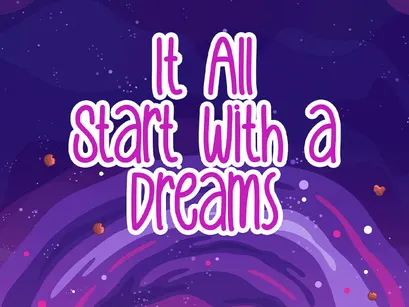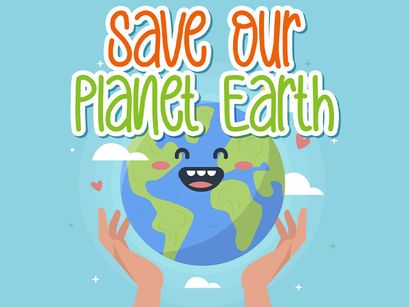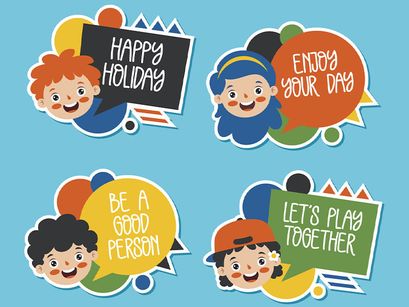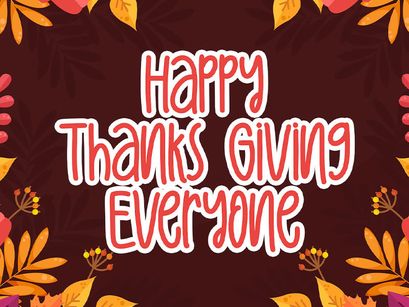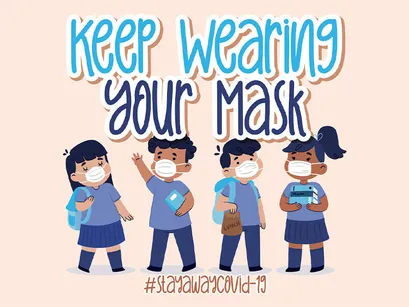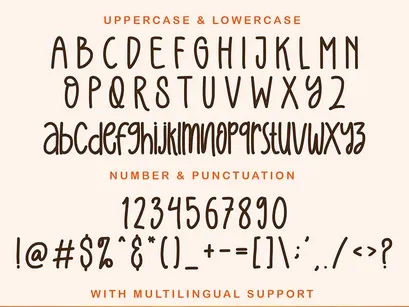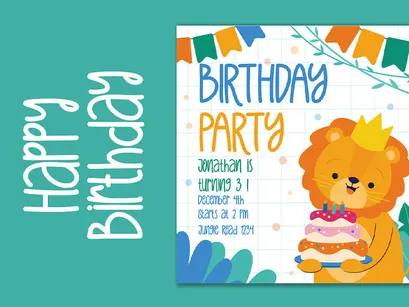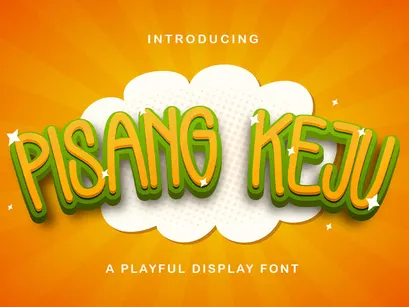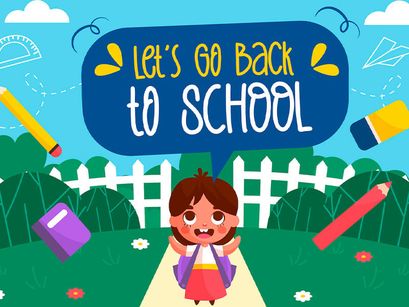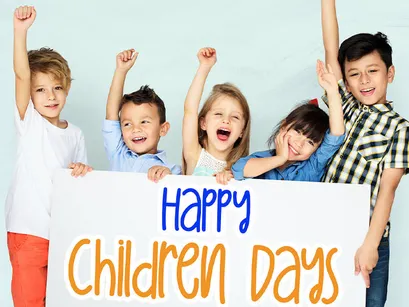
Pisang Keju - Playful Display Font
Introducing Pisang Keju - Playful Display Font
Pisang Keju is a fun display font. Playful and fresh, this font will be a hit for each of your children or school projects!